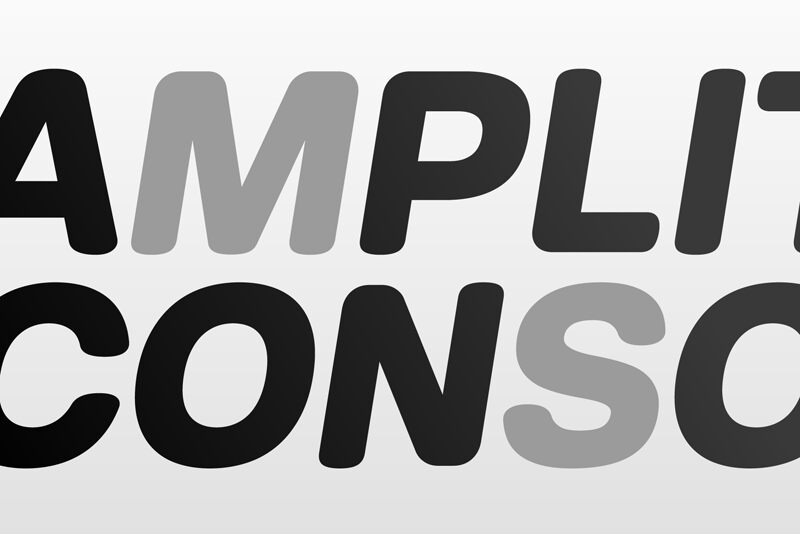
Hando Soft Trial Regular
Hando Soft, designed by Eko Bimantara, is a versatile sans serif font with a semi-light weight and semi-expanded width. Its clean lines and modern aesthetic make it ideal for a wide range of projects.
Use Hando Soft for website headers or body text to create an elegant and professional look. Its legibility makes it suitable for digital or print projects, such as brochures, magazines, or presentations. Whether you're designing a minimalist logo or creating eye-catching posters, Hando Soft is the perfect choice to add sophistication and style to your designs.